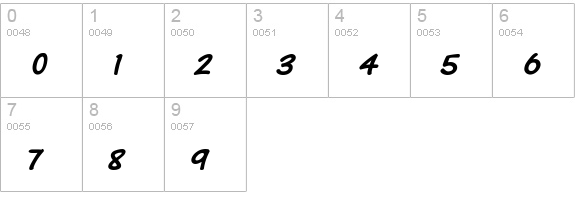
Komika Text Kaps Italic is a distinctive, italic variant in the Komika typeface family \xE2\x80\x94 well suited to design and typography projects.
Komika Text Kaps Italic is a stylish and modern font that adds a touch of elegance to any design project. With its sleek and sleek italicized style, this font is perfect for creating eye-catching headlines, titles, and other text elements. The unique letterforms of Komika Text Kaps Italic give it a sophisticated and contemporary look that is sure to make your designs stand out. Best of all, Komika Text Kaps Italic is available for free download at FontsMarket.com. Whether you're a seasoned designer looking for a fresh new font to add to your collection or a beginner just starting out, this font is a must-have for anyone looking to add a touch of sophistication to their projects. Download Komika Text Kaps Italic today and elevate your designs to the next level.